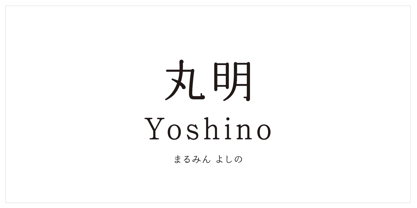
MaruminYoshino StdN
by Kinuta Font Factory
The MaruminYoshino StdN Font Family was designed by and published by Kinuta Font Factory. MaruminYoshino StdN contains 1 styles. More about this family
Marumei Yoshino is designed with the same concept as Marumei Fuji and Marumei Yoshino, with thicker lines and a rounded, rounded edge shape. Compared to Marumei Fuji, the form of this character has a subtle hardness to the letterforms, giving it a warm, timeless flavour. The typeface can be used for a wide range of applications.